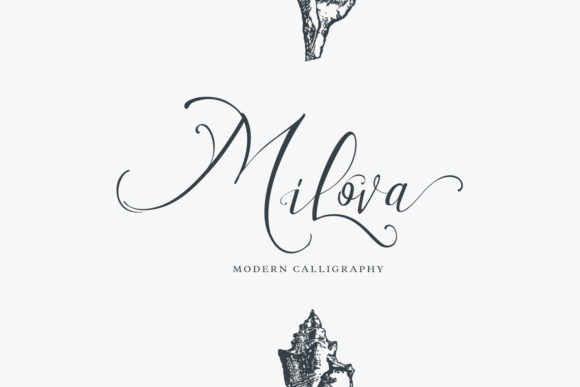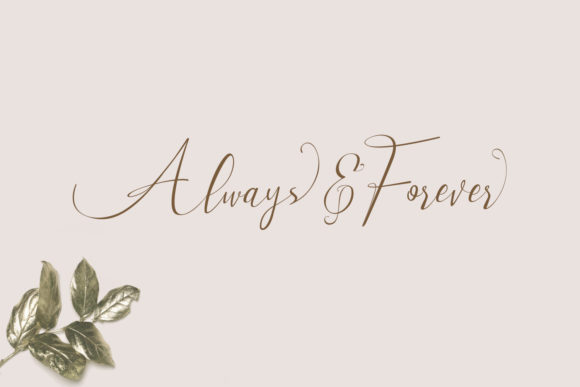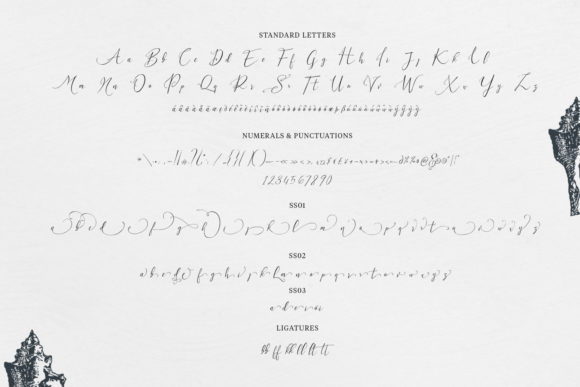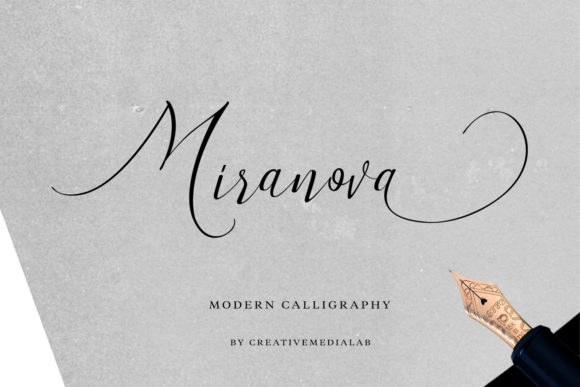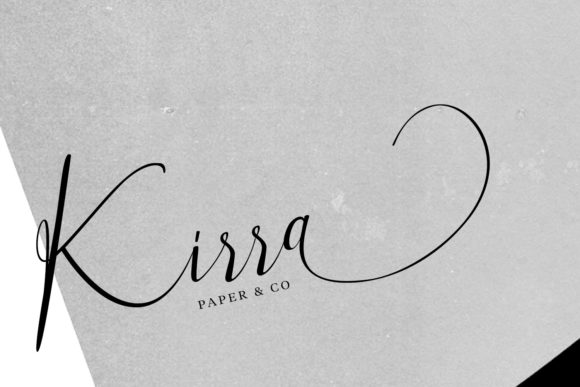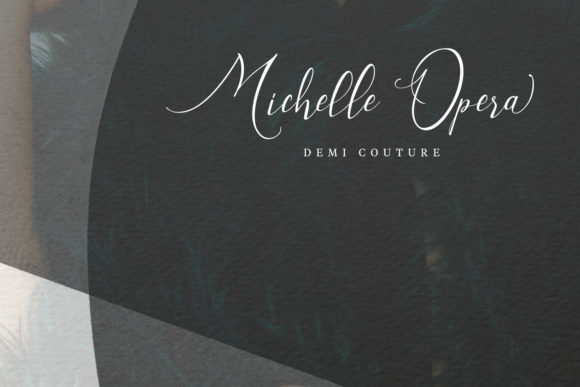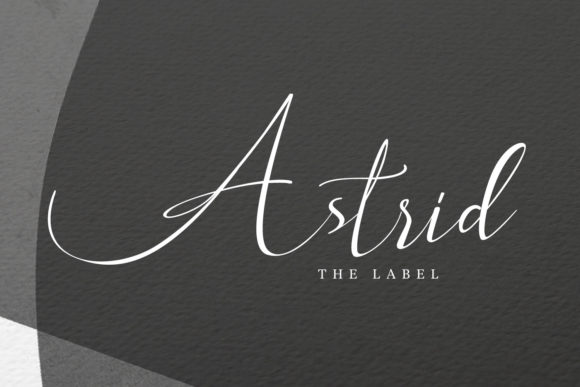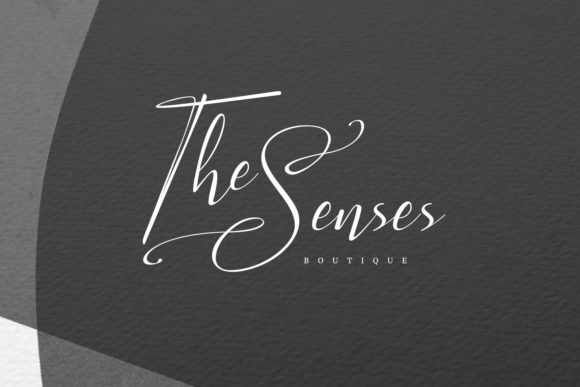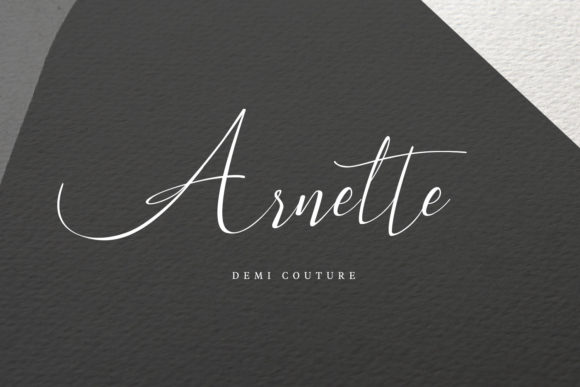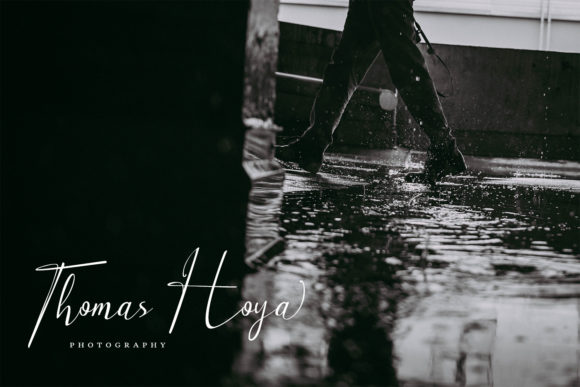
Milova Font
About Milova Font
Milova is a stunning handwritten font with an incredibly organic feel. It will effortlessly add a sophisticated spark to any design project.